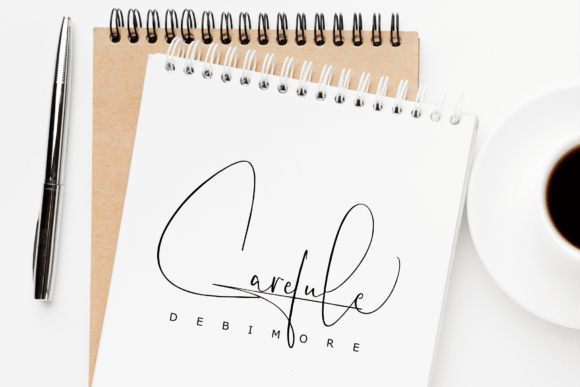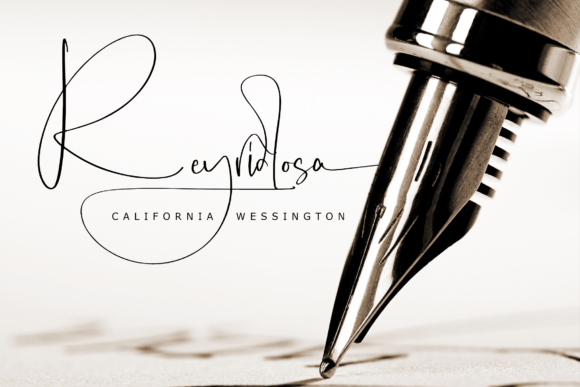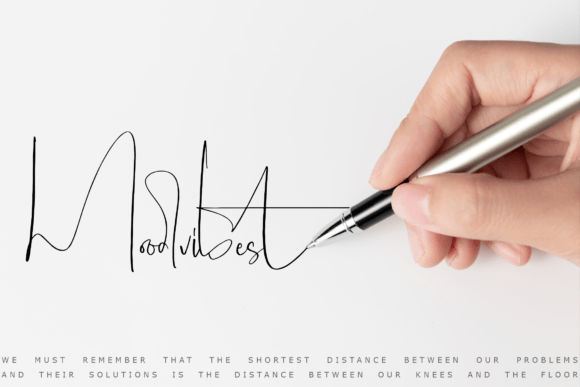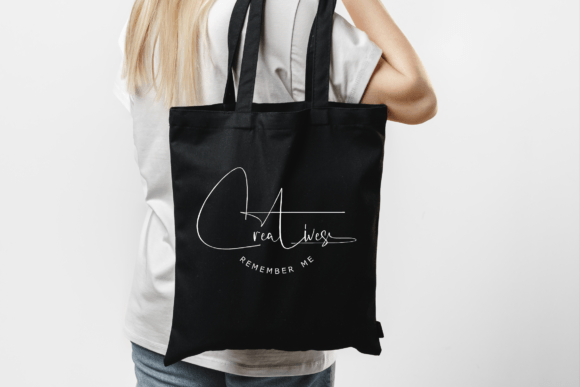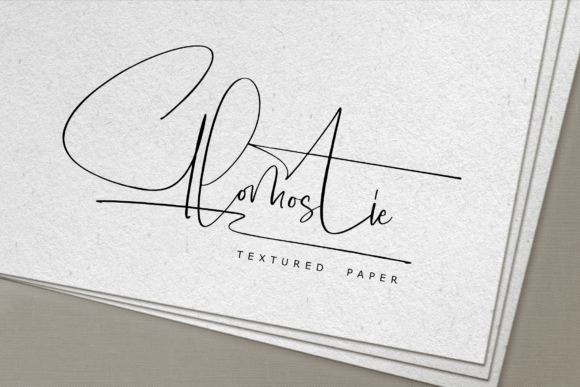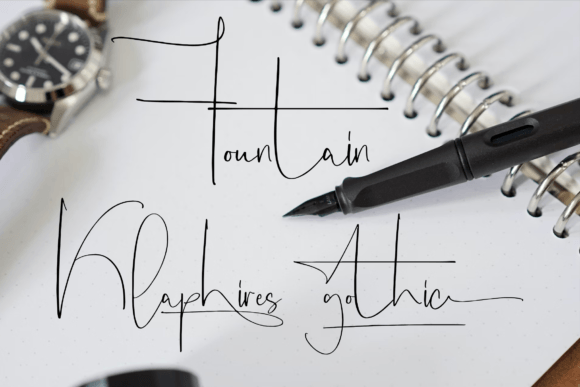
Introducing Clomantso Font: Elevate Your Designs with Elegance and Sophistication
In the world of typography, a well-crafted font can make all the difference in transforming a design from ordinary to extraordinary. For designers and crafters seeking to add a touch of class and sophistication to their creations, Clomantso Font is an exceptional choice. This stunning signature script font is designed to bring a sense of elegance, style, and refinement to any project.
The Essence of Clomantso Font
Clomantso Font is a classy, realistic signature script font that embodies the perfect blend of style, grace, and flow. Its elegant and refined strokes are carefully crafted to create a sense of movement and fluidity, making it ideal for designers who want to add a touch of sophistication to their work. Whether you’re creating a logo, branding materials, or digital content, Clomantso Font is sure to elevate the look of your creations while keeping them grounded and natural.
Key Features of Clomantso Font
- Classy and Realistic Design: Clomantso Font boasts a classy and realistic design that is perfect for creating high-end designs, such as luxury branding, packaging, and advertising materials.
- Elegant and Refined Strokes: The font features elegant and refined strokes that are carefully crafted to create a sense of movement and fluidity.
- Stylish and Graceful: Clomantso Font is a stylish and graceful font that adds a touch of sophistication to any design.
- Flowing and Natural: The font’s flowing and natural design makes it perfect for creating designs that require a sense of movement and fluidity.
Use Cases for Clomantso Font
Clomantso Font is a versatile font that can be used in a variety of design projects, including:
- Logo Design: Create stunning logos that exude elegance and sophistication.
- Branding Materials: Develop high-end branding materials, such as business cards, letterheads, and brochures.
- Digital Content: Add a touch of class to your digital content, such as website headers, social media graphics, and email newsletters.
- Packaging Design: Create beautiful packaging designs that stand out on store shelves.
- Advertising Materials: Develop eye-catching advertising materials, such as billboards, posters, and flyers.
Why Choose Clomantso Font?
With so many fonts available, why choose Clomantso Font? Here are just a few reasons:
- Unique and Distinctive: Clomantso Font is a unique and distinctive font that will help your designs stand out from the crowd.
- High-Quality Design: The font is designed with high-quality craftsmanship, ensuring that it will look great in any design.
- Easy to Read: Despite its elegant and refined design, Clomantso Font is easy to read, making it perfect for body text and headlines.
- Versatile: The font is versatile and can be used in a variety of design projects.
In conclusion, Clomantso Font is an exceptional choice for designers and crafters seeking to add a touch of elegance and sophistication to their creations. With its classy, realistic design, elegant and refined strokes, and stylish and graceful flow, this font is sure to elevate the look of any design. Whether you’re creating a logo, branding materials, or digital content, Clomantso Font is a versatile and high-quality font that will help you achieve your design goals.